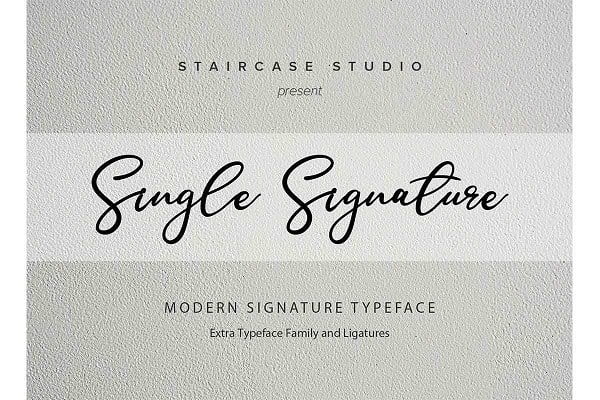
Single Signature Font
Single Signature Font is a hand-written script typeface with a Gel pen and natural style, this typeface is great for your next creative projects such as watermark on photography, quotes, album cover, logo, business card, and many other design project.
Collection comes with uppercase letters, lowercase letters, alternate lowercase letter, numbers and punctuation. This font is free for PERSONAL USE.